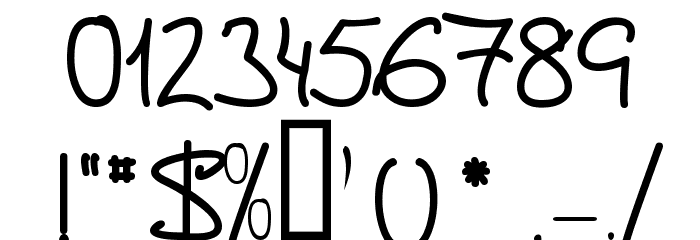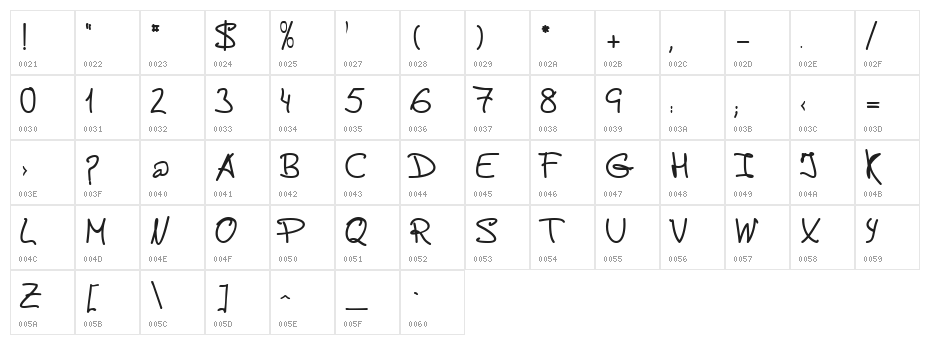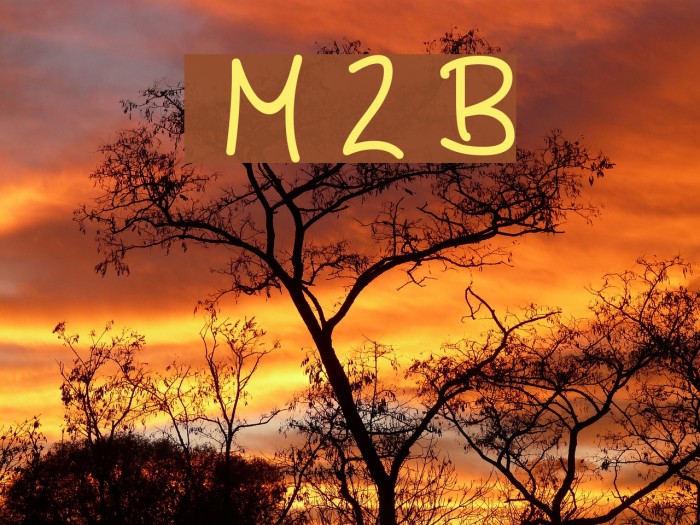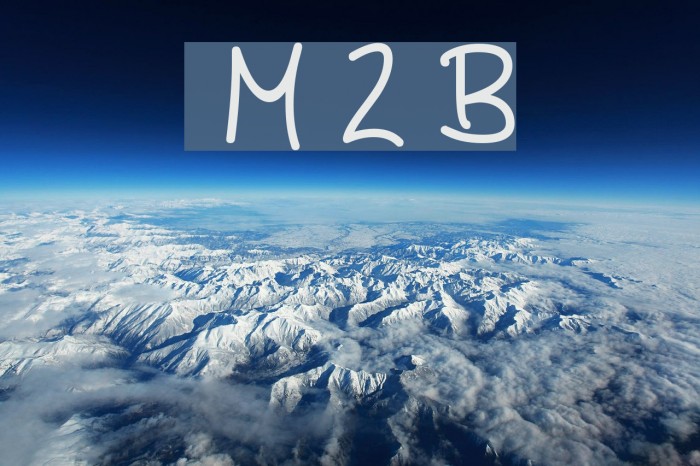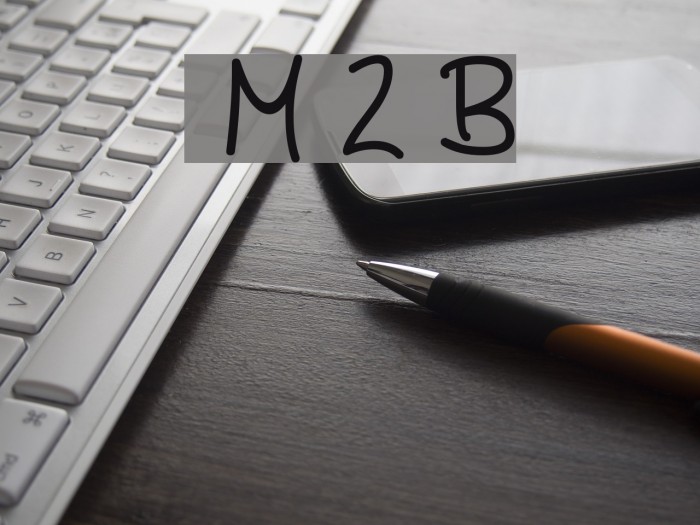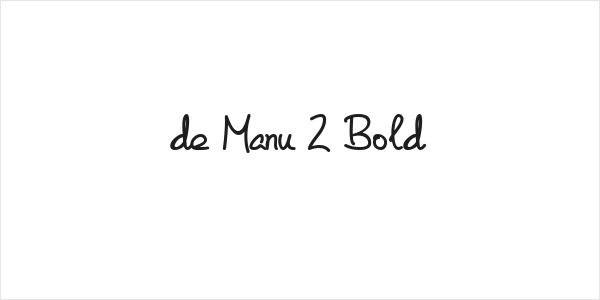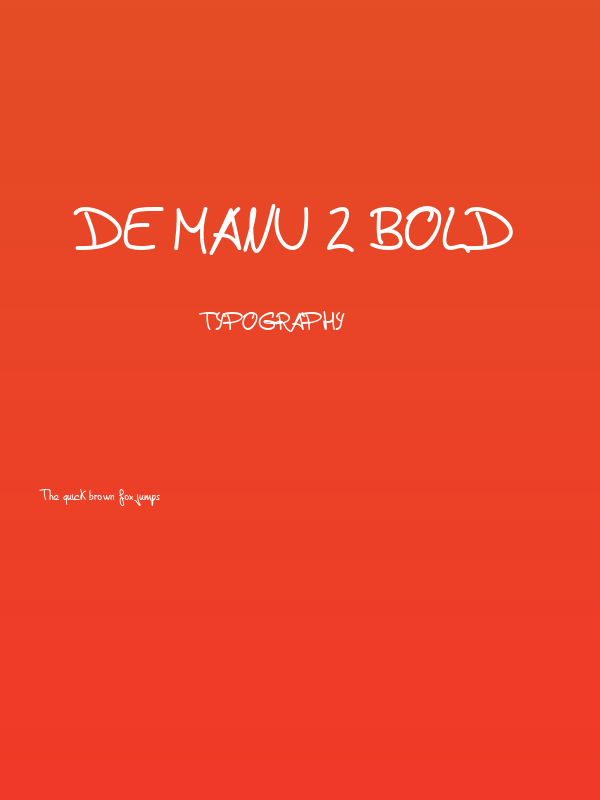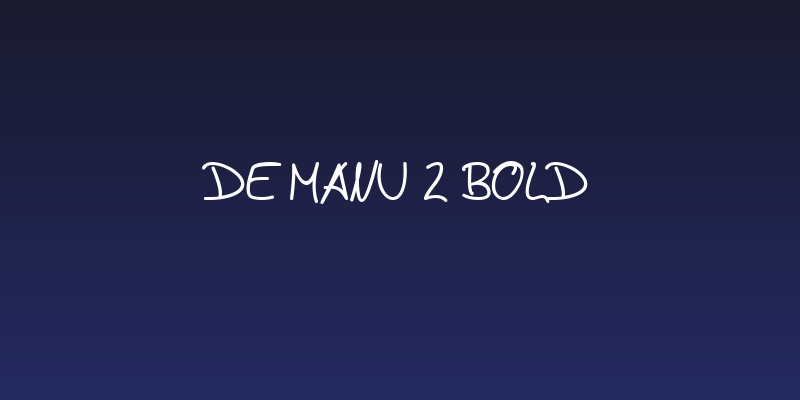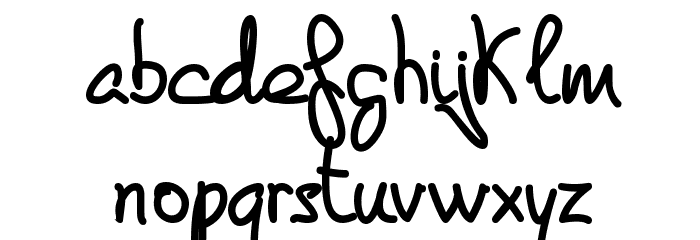
de Manu 2 Bold Font
de Manu 2 Bold Description
This font exhibits a playful and informal handwritten style, characterized by its smooth, flowing curves and slightly irregular letterforms. The uppercase letters are bold and dynamic, with a consistent stroke width that gives them a lively appearance. The lowercase letters maintain the same energetic feel, with unique variations in each character that add to the font's charm. Numbers are rounded and maintain the same playful aesthetic, making them easily readable. Special characters are creatively designed, fitting seamlessly with the overall style. This font's casual and friendly nature makes it ideal for projects that require a personal touch.
Overall StyleCasual, Playful
Use CaseHeadlines, Informal text, Creative projects
Proposed ProjectsIdeal for greeting cards, children's books, casual branding, and social media graphics.